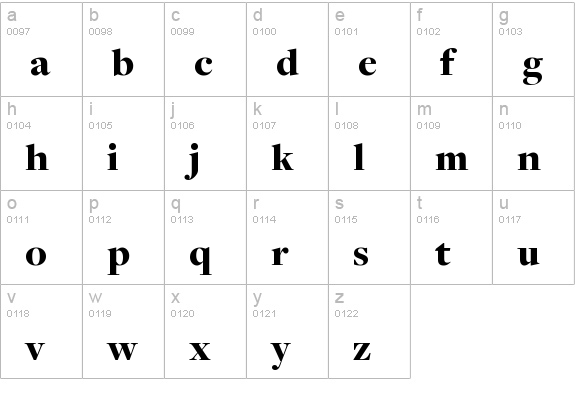
FreightDispBlack Font Details
FreightDispBlack is a bold and commanding font that exudes strength and professionalism. Its sturdy letterforms make a strong statement, perfect for headlines and titles that demand attention. With its clean lines and modern aesthetic, FreightDispBlack is a versatile typeface that can be used across a variety of design projects. This font is available for free download at FontsMarket.com, providing designers and creatives with easy access to a high-quality typeface for their projects. Whether you're working on branding, packaging, or editorial design, FreightDispBlack offers a bold and impactful option that will make your text stand out. Download this font today and elevate your designs with its powerful presence.